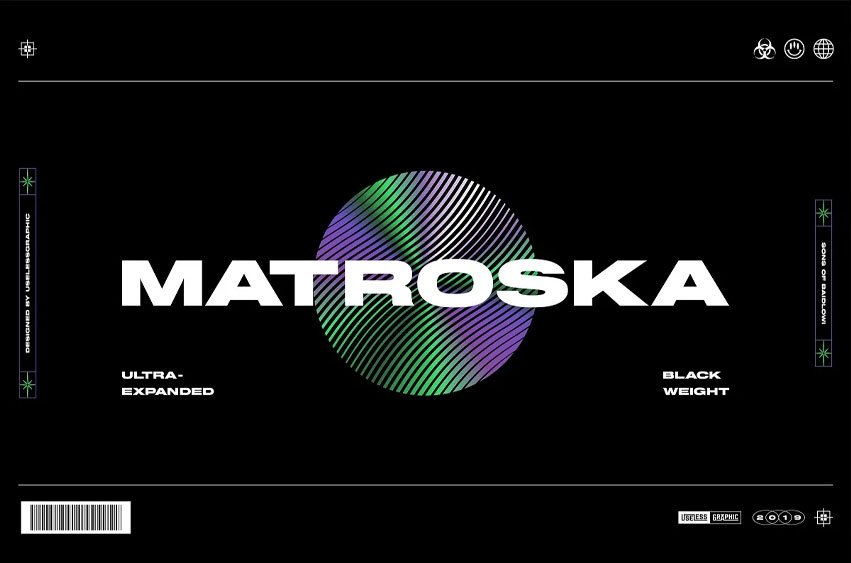
Matroska Font is an ultra-bold sans serif typeface, Matroska was created in order to make huge statements whatever the context. The patented geometric sans serif design is downright stretched out to the limits of its structure to run riot with possibilities.
As characters get added, as glyphs or ligatures are added, Matroska is always expanding to create new statements in bold, clarion type where it is used.